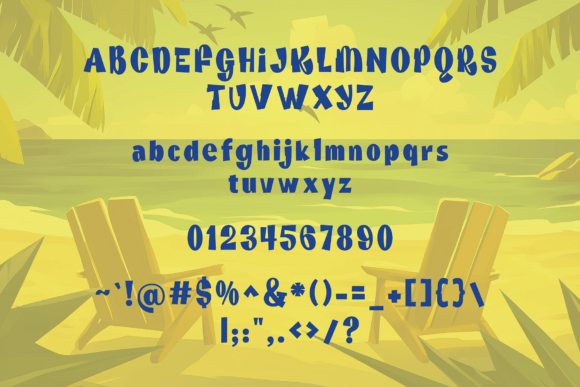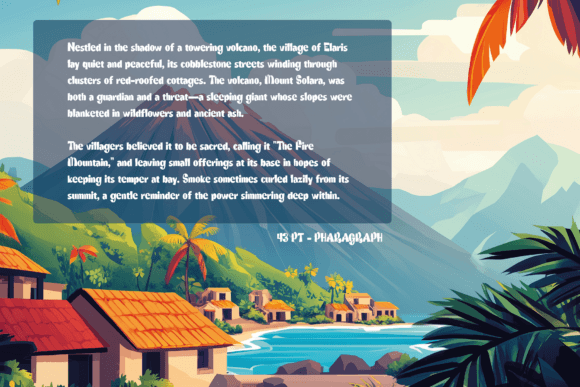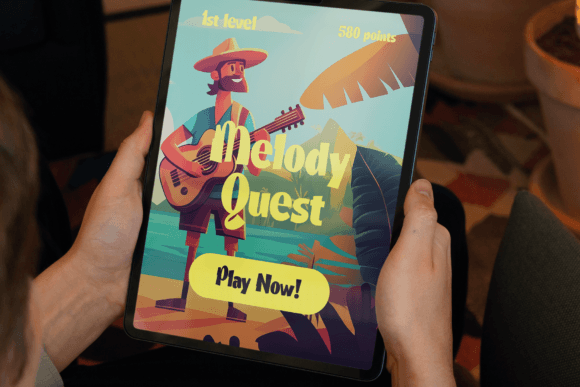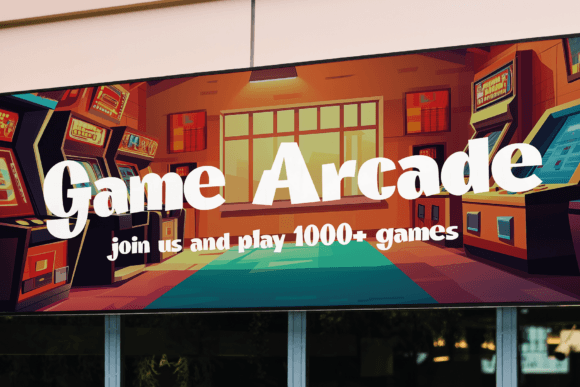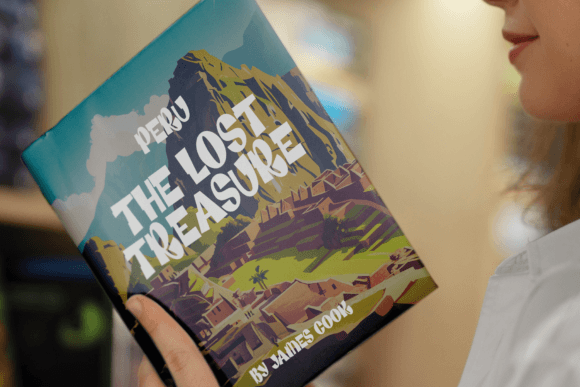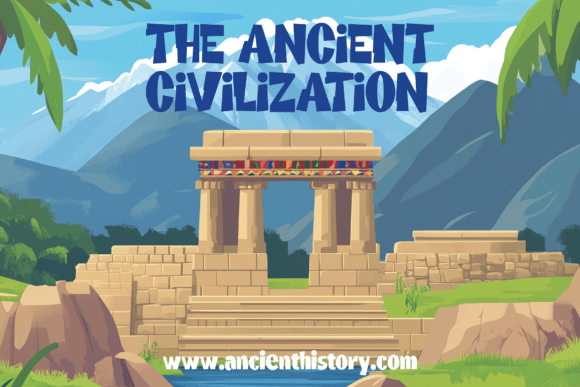
Unleashing the Joy in Your Designs
As a designer, have you ever stared at a blank canvas, searching for the perfect font to bring your project to life? Maybe you’re creating a new children’s book, designing a party invitation, or crafting a social media post to spread some cheer. Whatever your creative pursuit, you’re on the hunt for that special something that captures the essence of fun and positivity.
Enter the Bango Tango Font, a vibrant and playful sans-serif typeface that’s bursting with personality and charm. With its smooth curves and cheerful vibe, this font is designed to make your projects pop with energy and warmth. Whether you’re working with kids, events, or any project that needs a touch of joy, the Bango Tango Font is the perfect choice for spreading smiles and good vibes.
Bango Tango Font Key Features
• Font Family: Bango Tango is a sans-serif font family with a unique blend of modern and vintage characteristics.
• Character Set: The font family includes a wide range of characters, including Latin, Cyrillic, and Greek alphabets, as well as punctuation marks and symbols.
• Unique Characteristics: Bango Tango features a distinctive blend of geometric and organic shapes, giving it a unique and eye-catching appearance.
Bango Tango Font Review
As a designer, I’m always on the lookout for unique and captivating fonts to elevate my designs. Bango Tango Font is one such font that caught my attention, and I must say, it’s a gem. ✨
• Its energetic and playful vibe makes it perfect for branding and marketing materials.
• The font’s bold and confident strokes create a sense of sophistication and elegance.
• It’s highly legible, even at smaller font sizes, making it ideal for body text.
However, there are some limitations:
• ⚠️ The font may be too loud and overwhelming for certain designs, so use it sparingly.
• ⚠️ Some letters, like the ‘a’ and ‘e’, may be difficult to read at very small font sizes.
Overall, I’m quite impressed with Bango Tango Font. It’s a versatile font that can add a touch of whimsy and playfulness to your designs. While it may not be suitable for all projects, it’s definitely worth considering for the right ones. With some careful use, Bango Tango Font can be a real showstopper.
Tips for Getting the Most Out of Bango Tango Font
1. Experiment with different font sizes and colors to create a unique look.
2. Pair Bango Tango with other fonts to create a visually appealing combination.
3. Use Bango Tango for titles, headings, and other attention-grabbing text.
Bango Tango Font is ideal for:
1. Creative projects, such as infographics, posters, and social media graphics.
2. Branding and marketing materials, such as logos and business cards.
3. Digital products
Alternatives to Bango Tango Font
Playfair Display is an elegant, high-end serif font that is ideal for luxury brands, high-end fashion, and other premium products. It is a great choice for designers who want to convey sophistication and refinement.
Compared to Bango Tango, Playfair Display has a more classic and traditional feel, while Bango Tango has a more modern and playful vibe.
Great Vibes is a modern, cursive script font that is perfect for creating a relaxed and casual atmosphere. It is ideal for designers who want to add a touch of whimsy and personality to their designs.
Unlike Bango Tango, Great Vibes has a more fluid and organic feel, while Bango Tango has a more geometric and structured appearance.